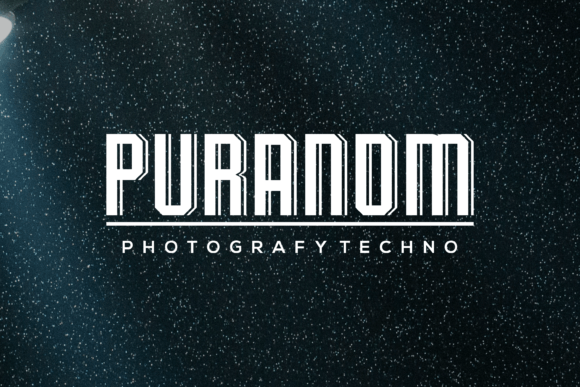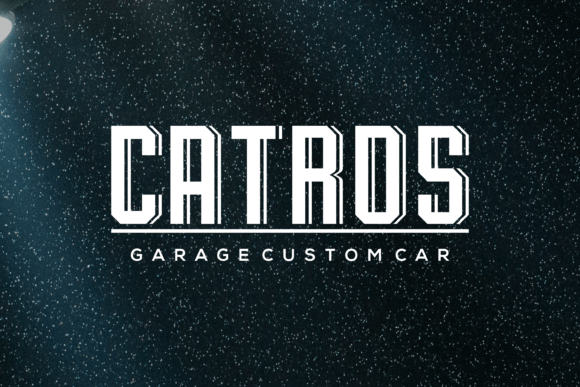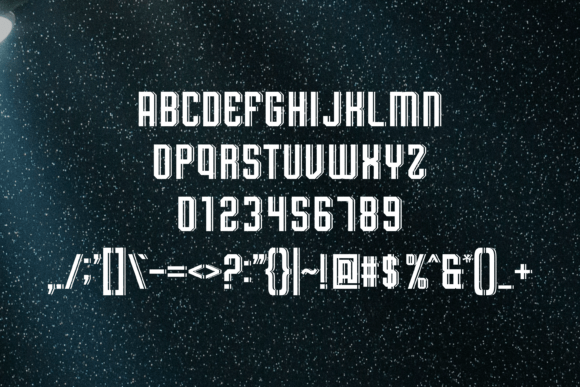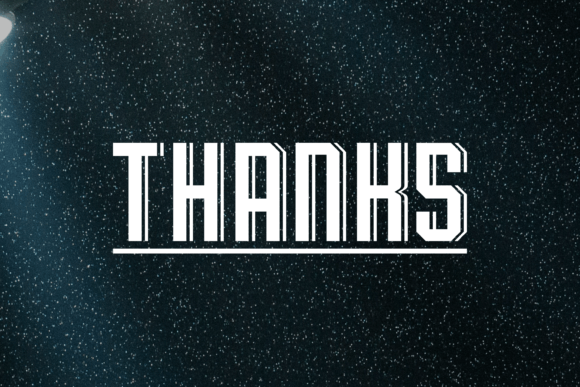
Slabsalby Font
SLABSALBY FONT SPECIMEN
Slabsalby is a modern and stylish slab serif font. Whatever the topic, this font will be a wonderful asset to your font library, as it has the potential to enhance any creation.